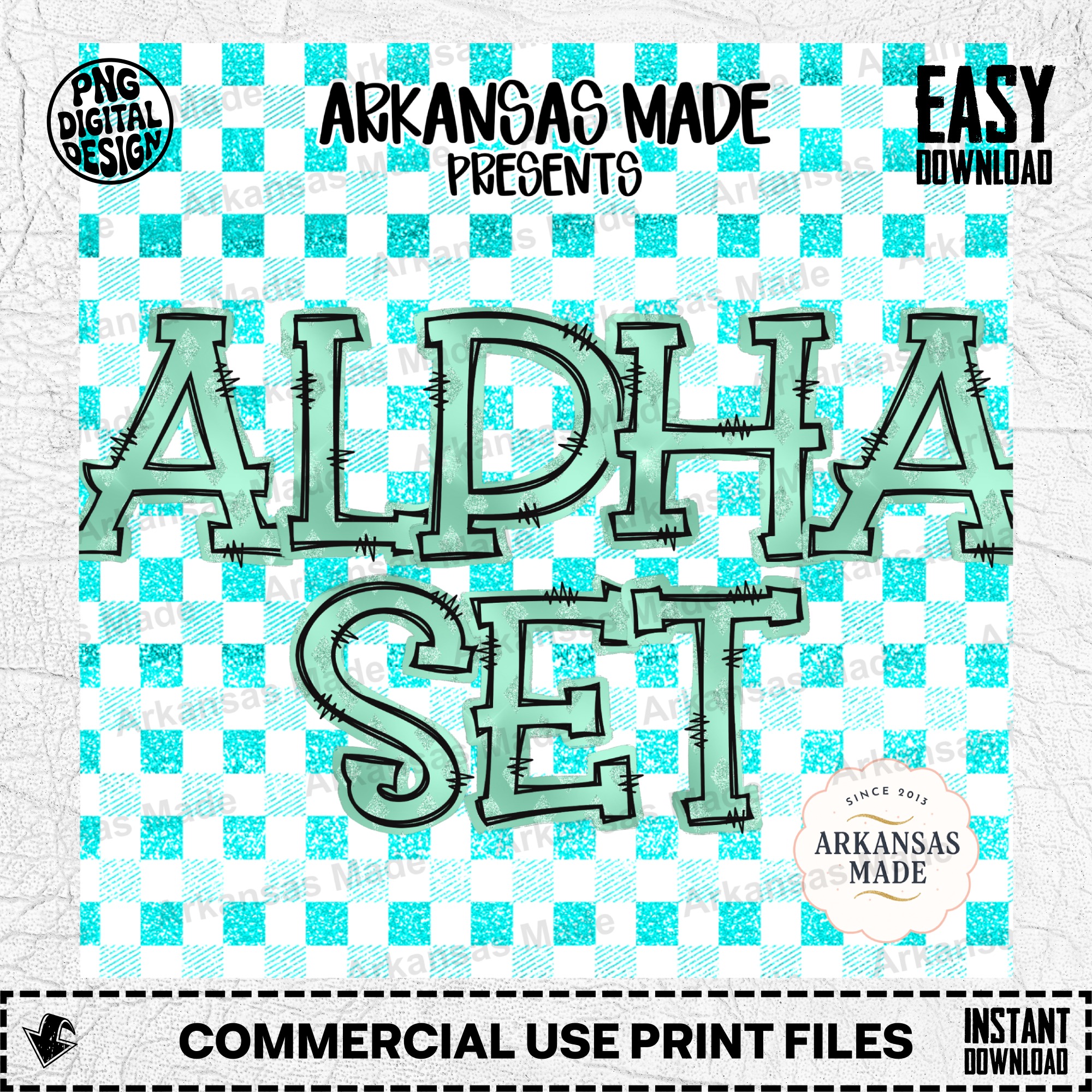
Faux Glitter Alpha Set PNG Digital Download | Distressed Block Letters Font | Sparkle Mint Teal Alphabet Design
Unleash creativity with our Faux Glitter Alpha Set PNG Digital Download, ideal for personalized designs. This sparkle mint teal alphabet features distressed block letters. Infuse your projects with a touch of playful shimmer and unique style. Ideal for crafters, DIY enthusiasts, and small business owners creating personalized items, from t-shirts to invitations. This versatile set offers a vibrant, eye-catching element for all your digital crafting needs.